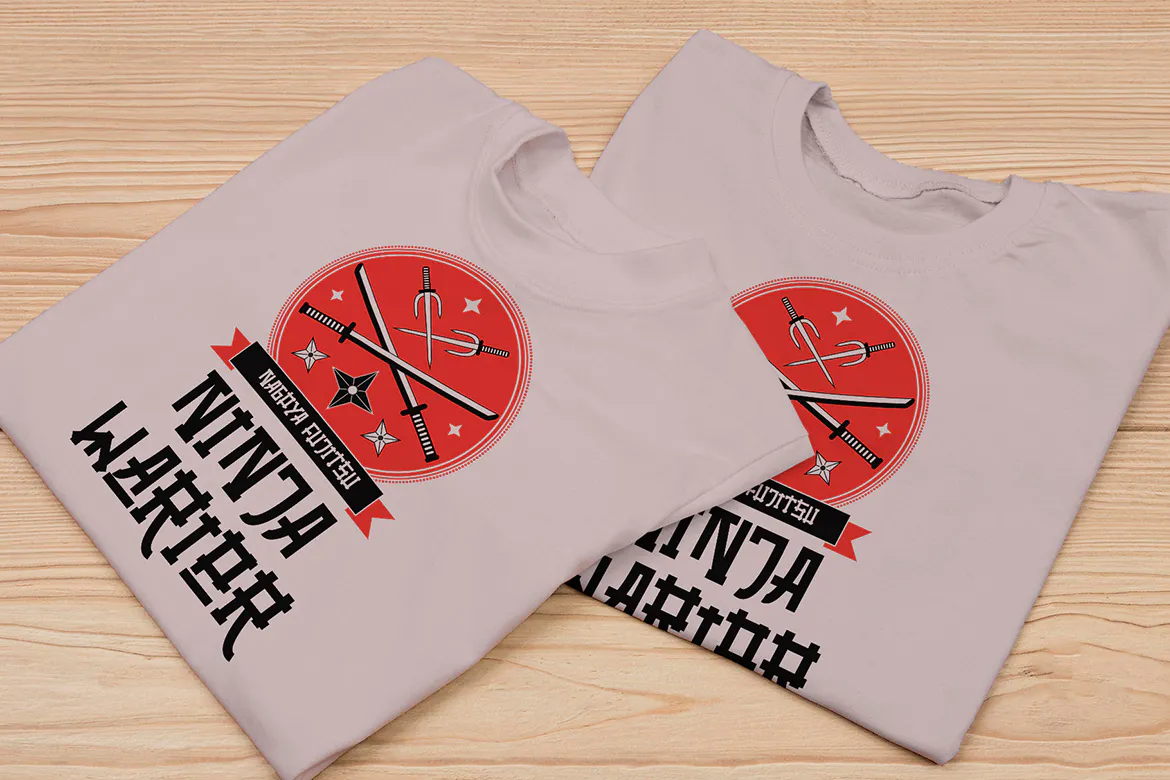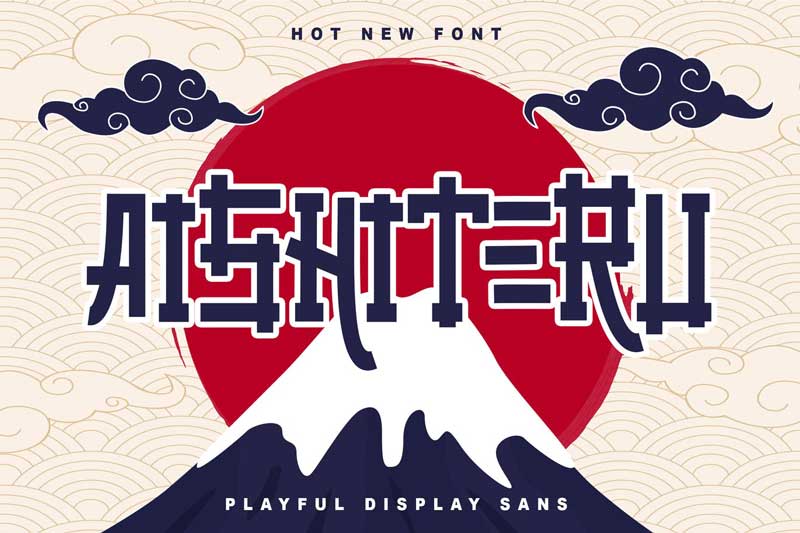
Aisiteru Font
Aisiteru
Aisiteru is an awesome Japanese-inspired display font. It has great readability and will add a striking touch to any design! Masterfully designed to become a true favorite, this font has the potential to bring each of your creative ideas to the highest level! It will look awesome on any T-shirt, logo, film, anime, movie, youtube thumbnail, print, or restaurant brand! This font is PUA encoded which means you can access all of the awesome glyphs with ease! It also features a wealth of special features including ligatures.